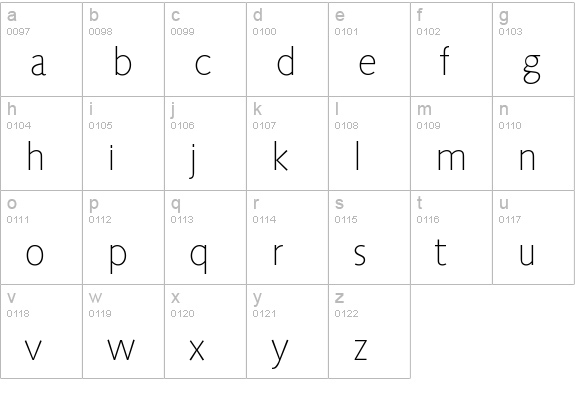
SaxonySerial-Xlight-Regular is the standard, neutral variant in the SaxonySerial typeface family \xE2\x80\x94 well suited to general body text, paragraphs, and standard typographic work.
SaxonySerial-Xlight-Regular is a sleek and modern font that strikes the perfect balance between professionalism and creativity. With its clean lines and subtle curves, this typeface exudes sophistication and elegance. The delicate and light weight of the characters make it perfect for adding a touch of refinement to any design project. This font is not only visually appealing but also highly versatile, suitable for a wide range of applications including branding, editorial design, and web content. Its readability and clarity ensure that your message will be communicated effectively to your audience. The best part? SaxonySerial-Xlight-Regular is available for free download at FontsMarket.com. This means you can easily access this high-quality font without any cost, making it a valuable addition to your font library. Don't miss out on the opportunity to elevate your designs with SaxonySerial-Xlight-Regular today!